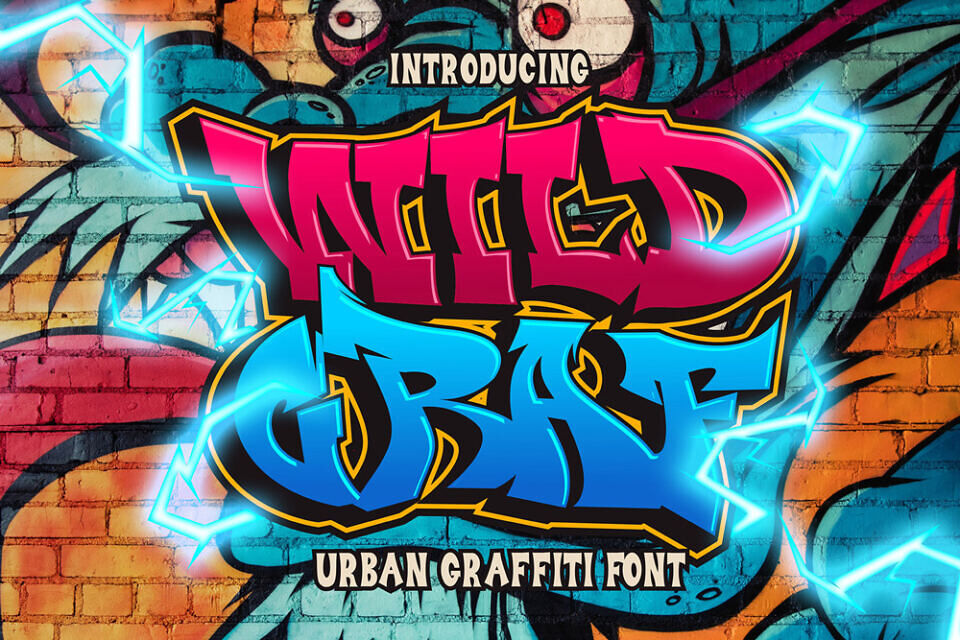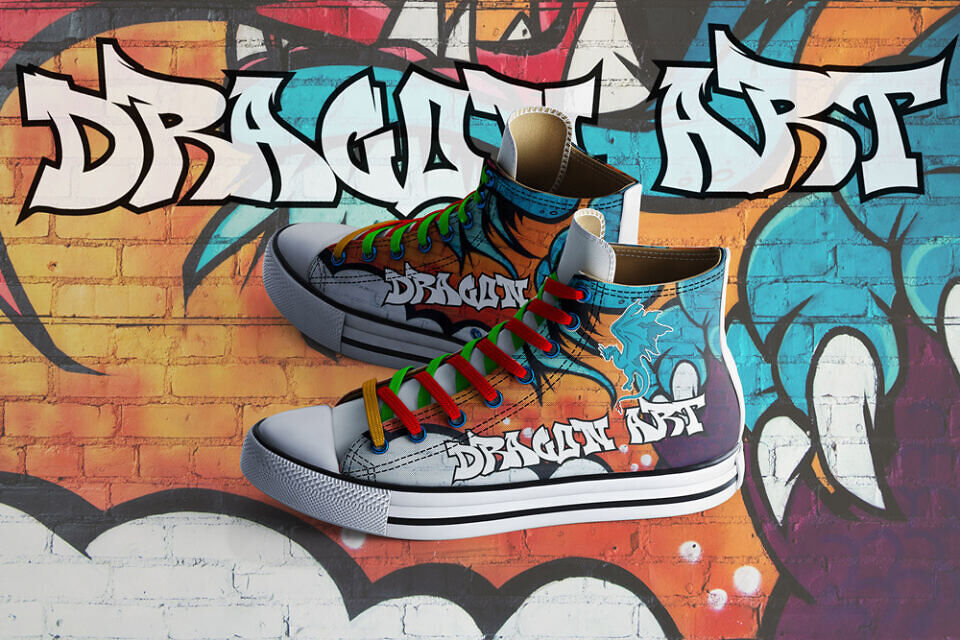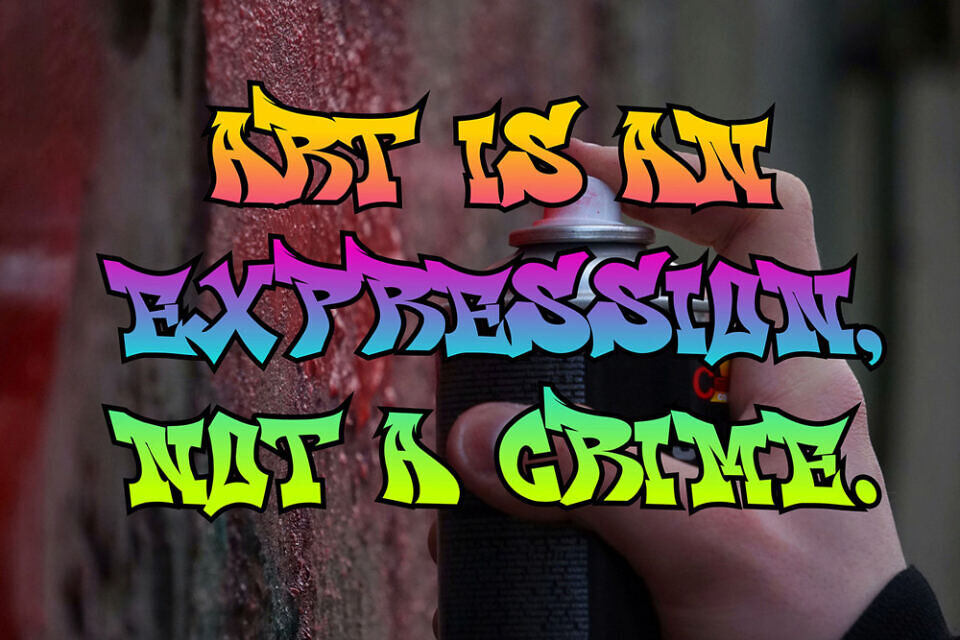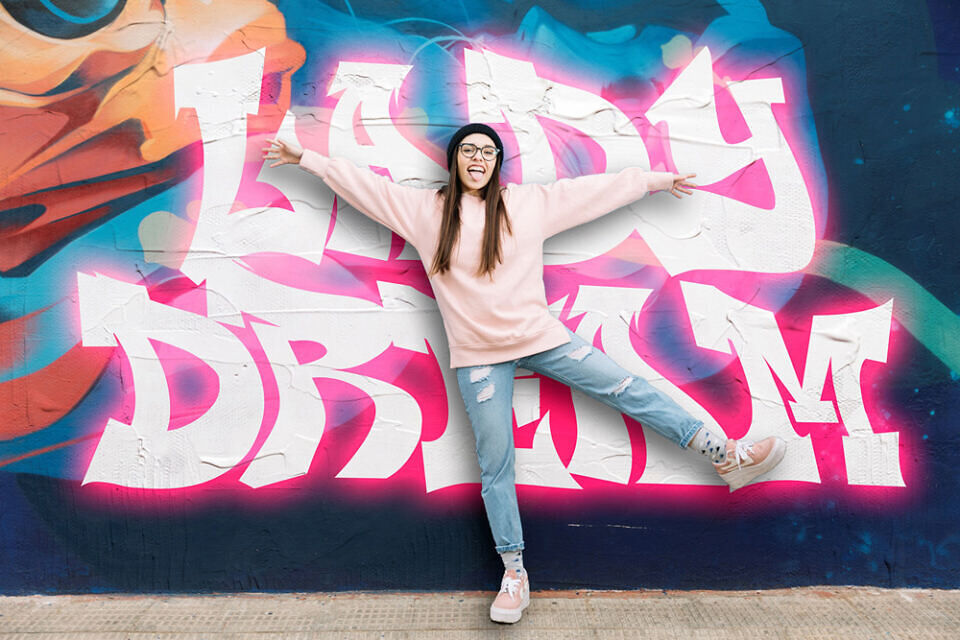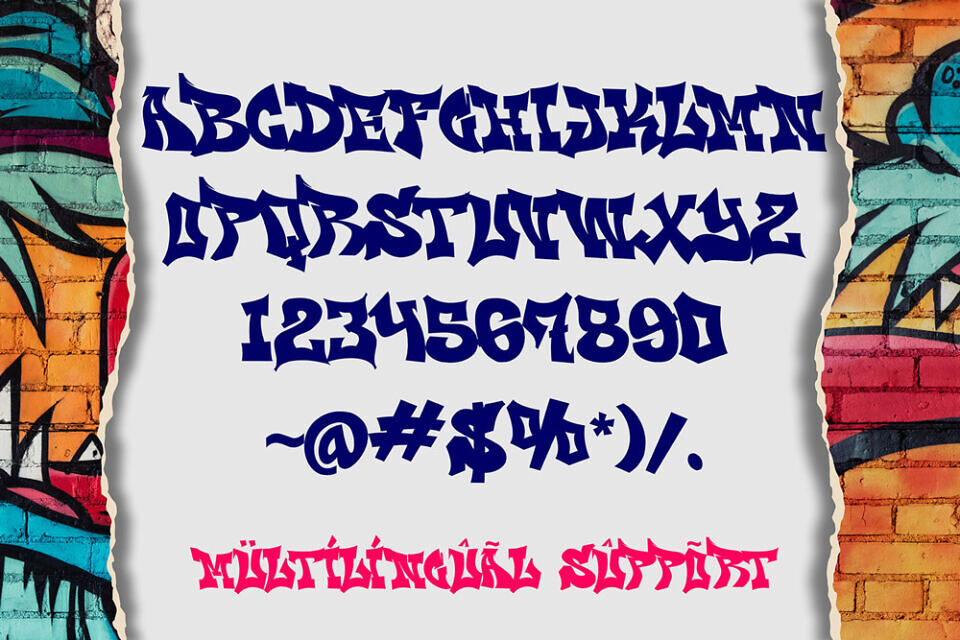
Wild Graff is a bold edgy graffiti font inspired by authentic street art culture, underground tagging, urban wall murals, and modern graffiti typography trends. Designed with aggressive letterforms, raw street energy, and expressive urban character, this graffiti display font delivers powerful visual impact for creative projects that demand attention.
Whether you are creating streetwear branding, gaming graphics, music artwork, social media content, or urban merchandise, Wild Graff provides the authentic graffiti typography needed to make your designs stand out.